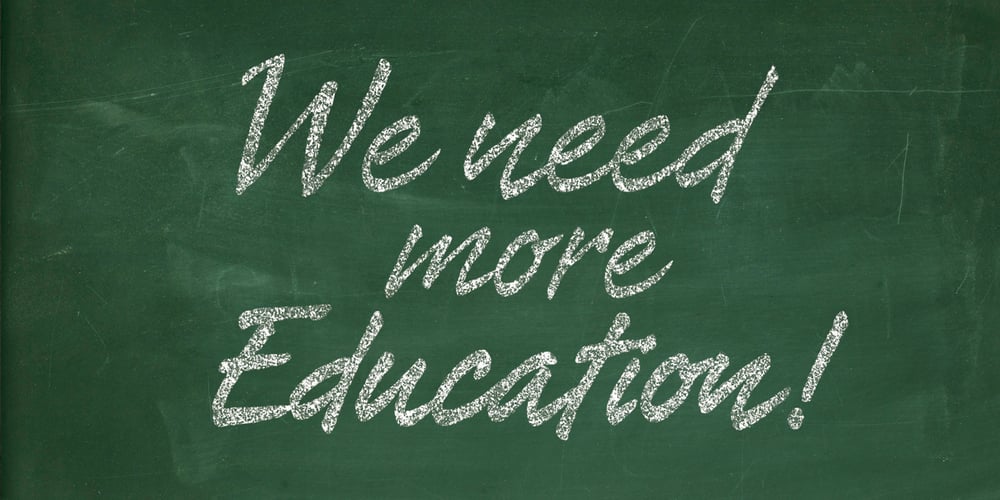
Tiza Font Family was designed by Alejandro Paul, Angel Koziupa and published by Sudtipos. Tiza contains 2 styles and family package options. Tiza is a rough take on informal faces and handwriting, brought on by the recent demand for scripts and brush lettering. Its flow leaves traces simulating runny pen ink, which makes it very suitable for handwriting-like paragraphs as well as casual greeting card and invitation setting. The bold weight, Tiza Negra, fits very nicely on book covers as well as large signs. Tiza is the proverbial reminder that typefaces can sometimes be more human than they are normally perceived. Designed by lettering great Angel Koziupa, and digitized and completed for Sudtipos by Alejandro Paul.